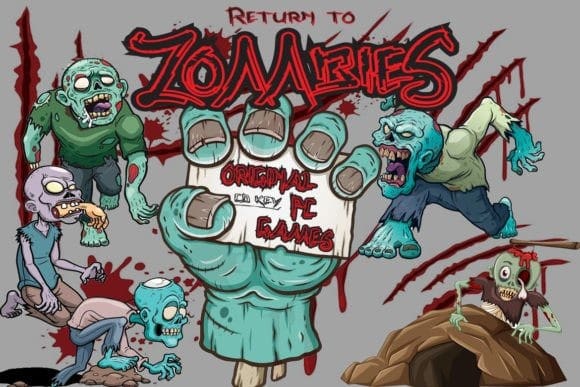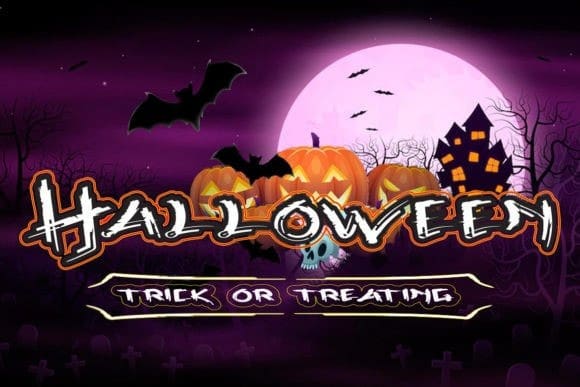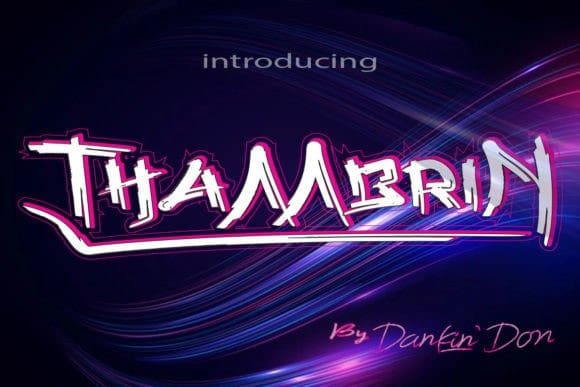
Thambrin Display Font
Thambrin Display Font is a mysterious and cool display font. Whatever the topic, this font will be a great asset to your font library, as it has the potential to enhance any creation. It’s perfect for logos, posters, banners, covers, movies, music, and more.